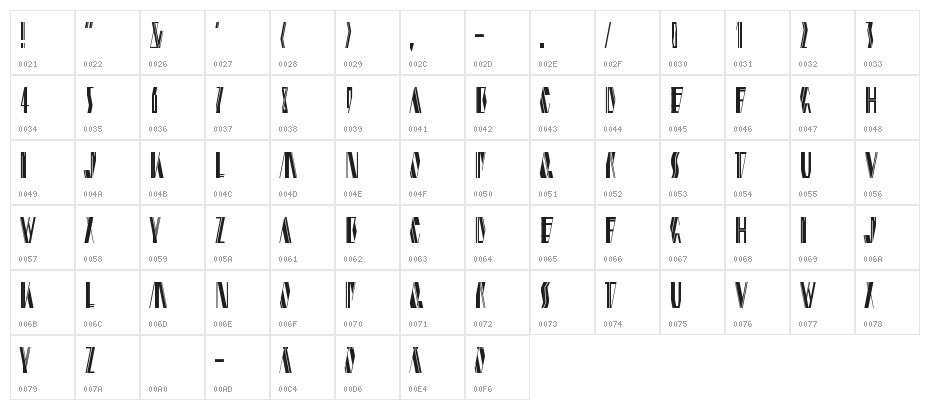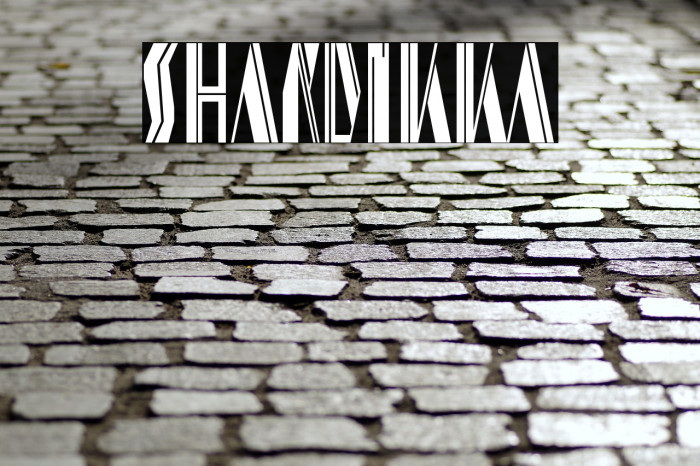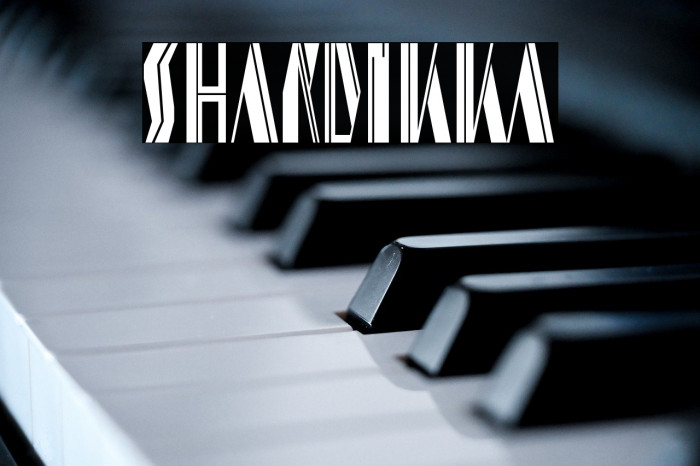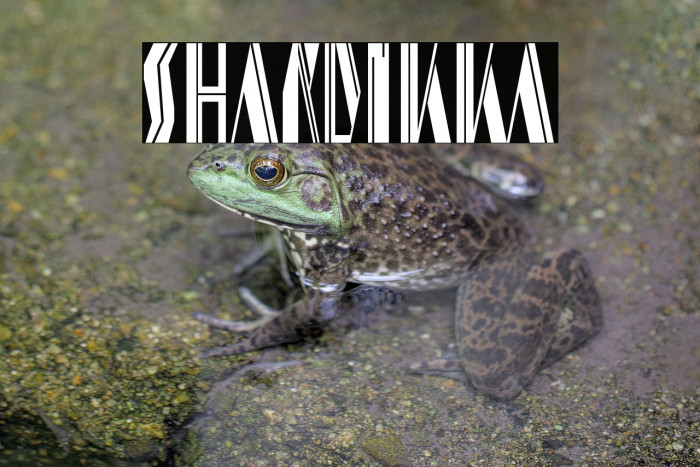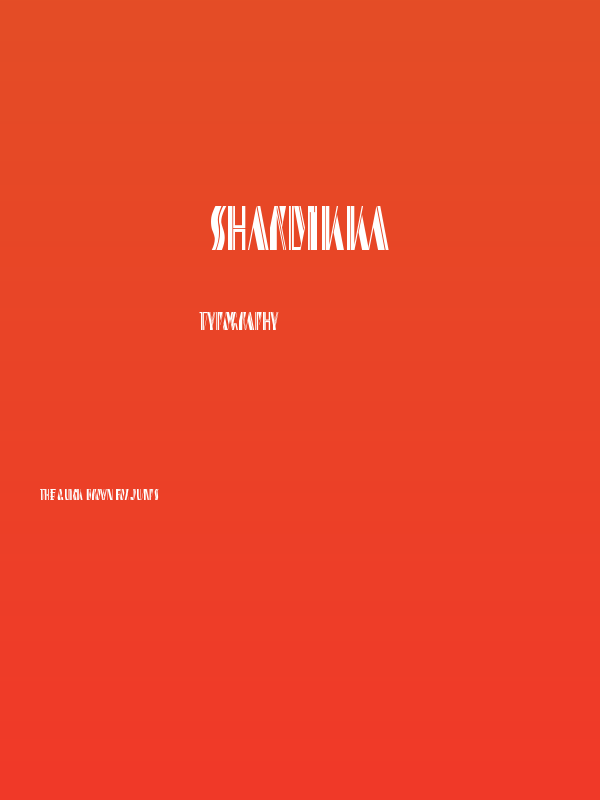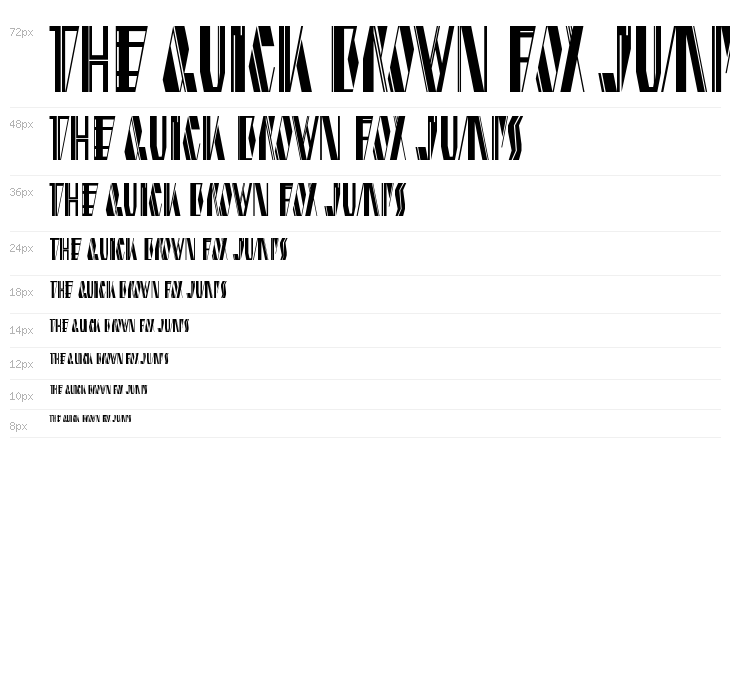
shardikka Font
shardikka Description
This font features a striking and bold design with a highly geometric and angular aesthetic. The characters are constructed with sharp, diagonal lines and varying stroke widths that create a dynamic and edgy appearance. The uppercase and lowercase letters maintain a consistent style, emphasizing verticality and symmetry. Numbers and special characters follow the same design principles, ensuring a cohesive look across all glyphs. The font's unique style makes it stand out, ideal for projects that require a modern and unconventional typeface.
| Proposed Projects | Ideal for branding, posters, album covers, and any design work that requires a modern, edgy typeface. |